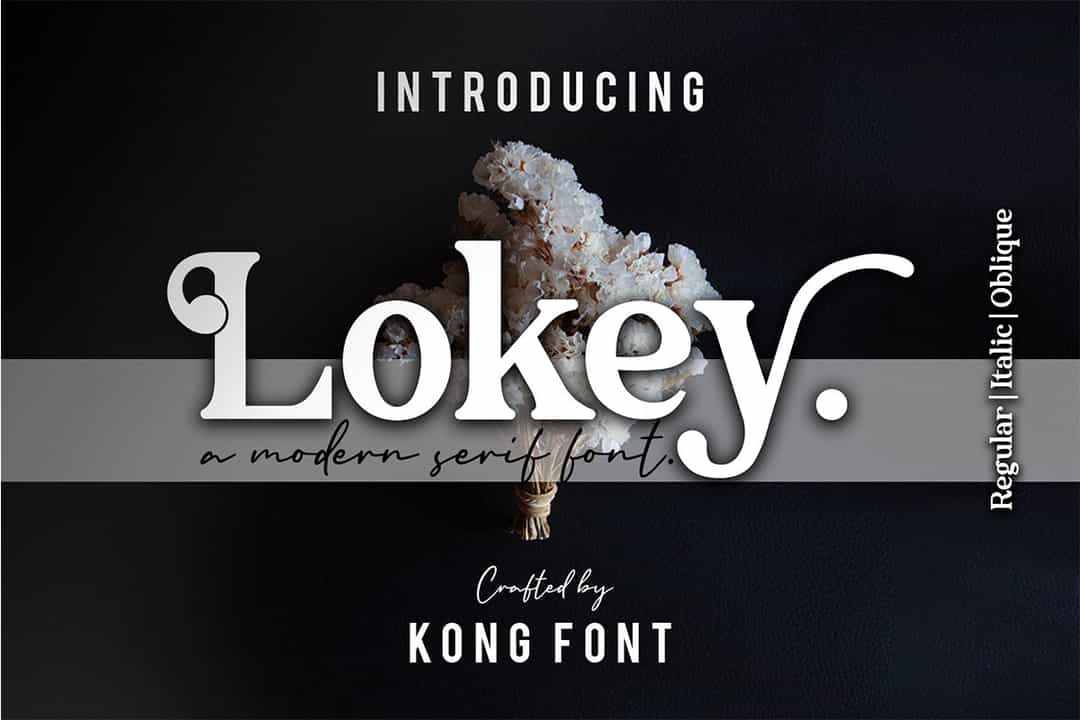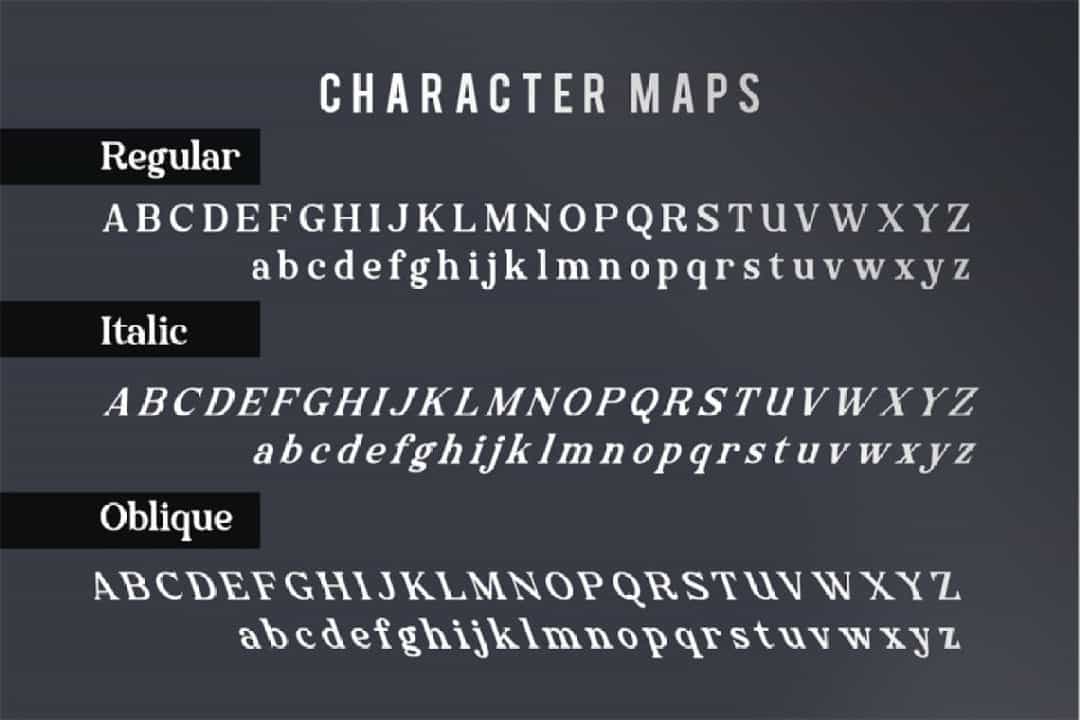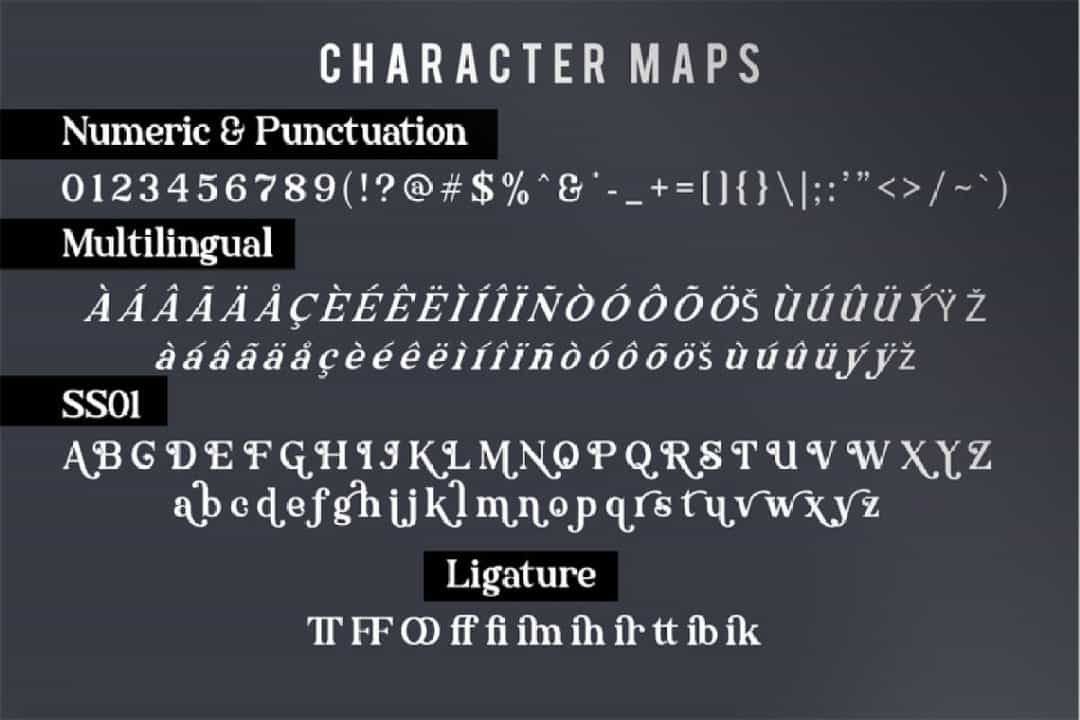
Presenting our brand new Lokey Serif Font. Perfect as an adorable invitation for birthdays, weddings, and any other celebrations; its set of numbers and letters make this font ideal for your project. Moreover, its functionality lends itself well to Logotype design, Branding design, Digital Lettering Arts (T-Shirt/Apparel Lettering Arts), Posters, Magazine covers as well as signage/advertising design projects – perfect for branding!